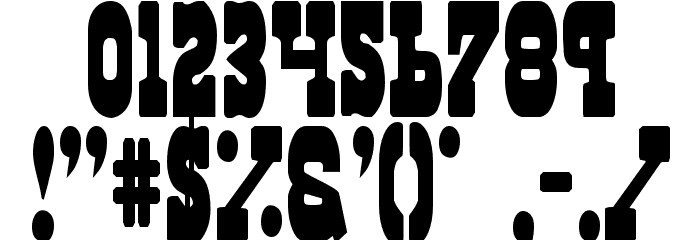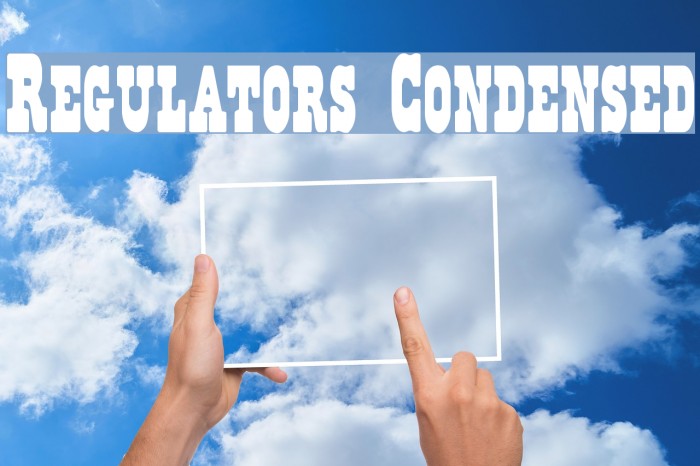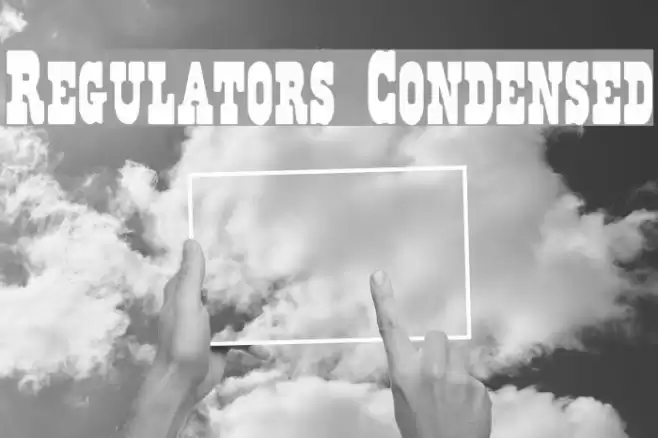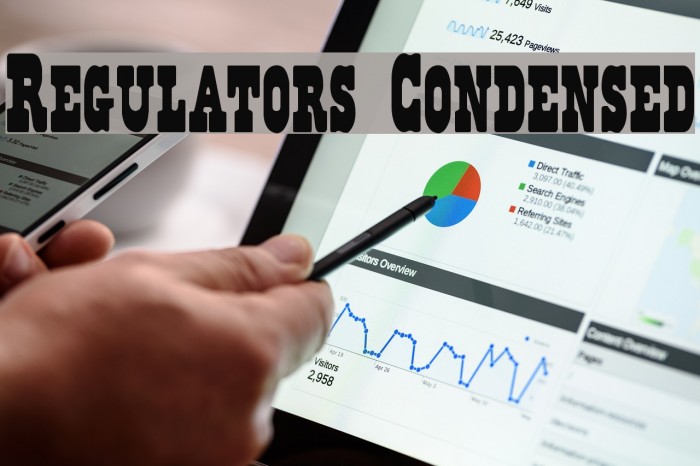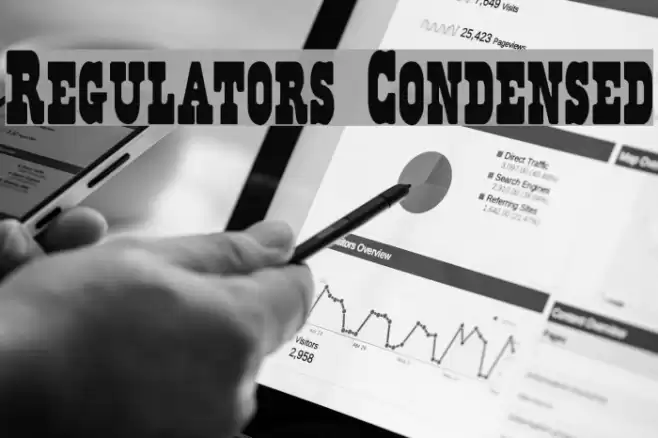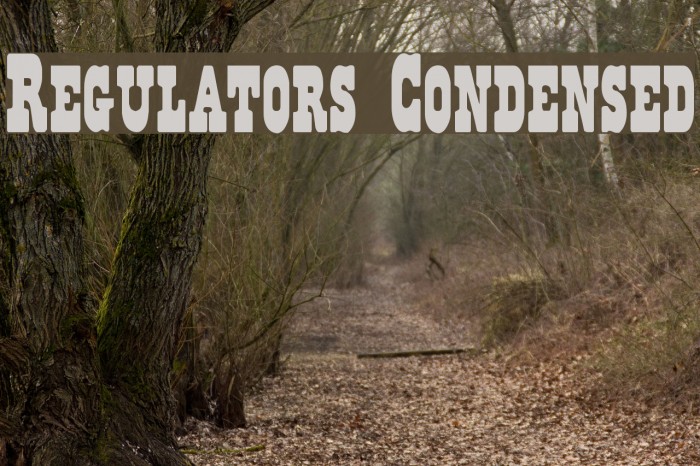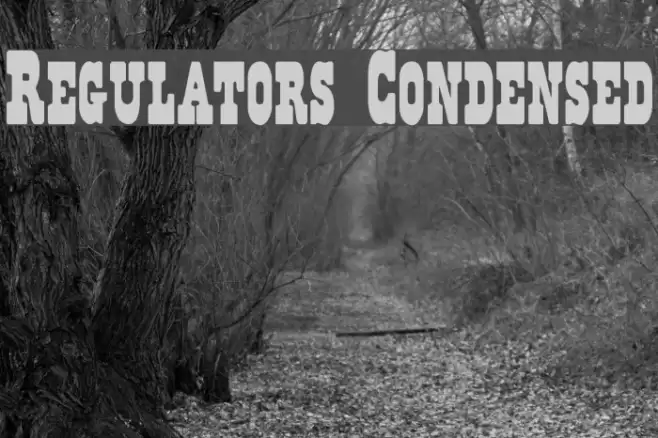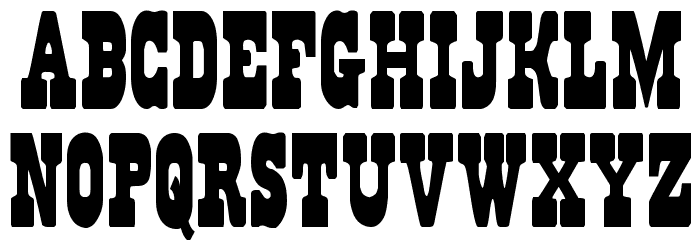
Regulators Condensed Font
Regulators Condensed Description
This font features a bold and condensed style with a strong presence, making it ideal for impactful designs. The characters are robust and blocky, with minimal spacing between them, which enhances their boldness. The uppercase letters are particularly striking, with thick strokes and a uniform height that creates a cohesive look. The numbers and special characters maintain the same boldness, ensuring consistency across all text elements. This font's condensed nature allows for more text to fit in a smaller space without losing its visual impact.
| Proposed Projects | Ideal for posters, headlines, logos, and any design requiring a bold statement. |